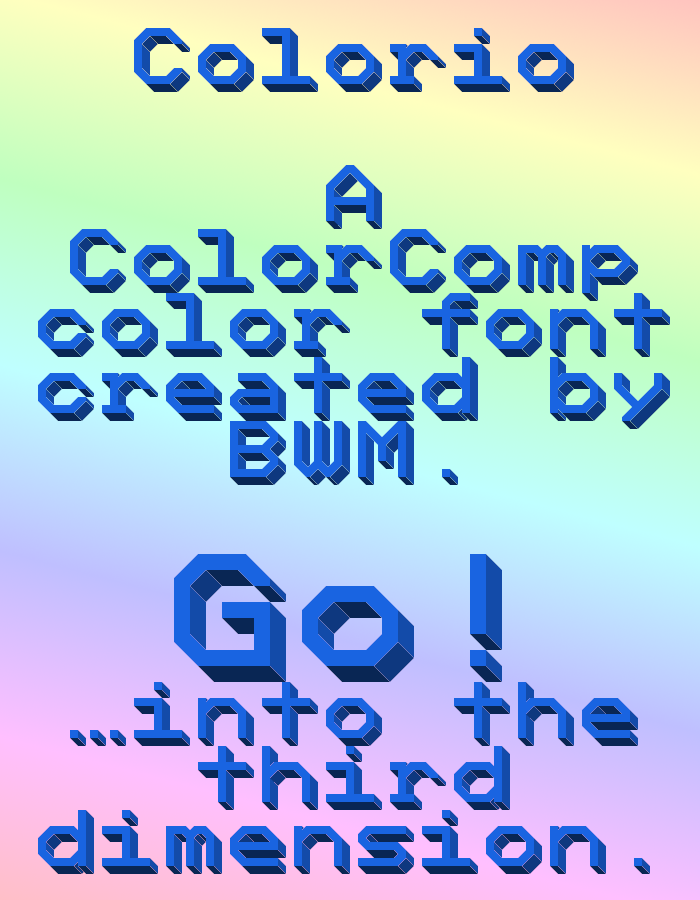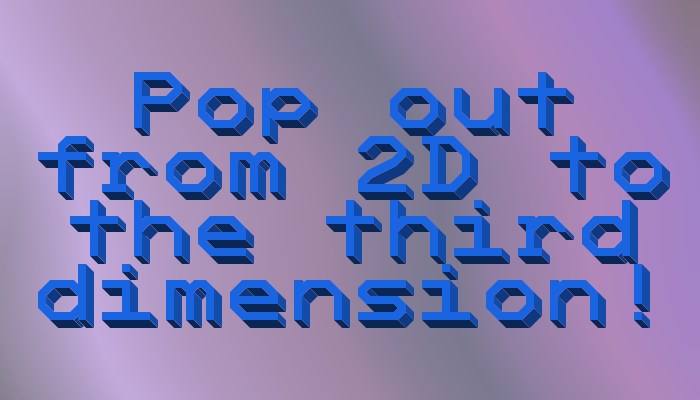
This might also work for coding, but the font being a color font means you can't see syntax coloring, nor will bold work since it's a color font.
@Meek I wonder if it'd be possible for the font generator to not include empty glyph layers in the font data? Some of the glyphs in this font use three colors, leaving one empty component per glyph.
That g is awesome.
whats this thing at the end?
U+1CC51 Is the little goober at the end
Is there a non colored version zithout the 3D effect?
Reminds me of a 3d vhs golden font…